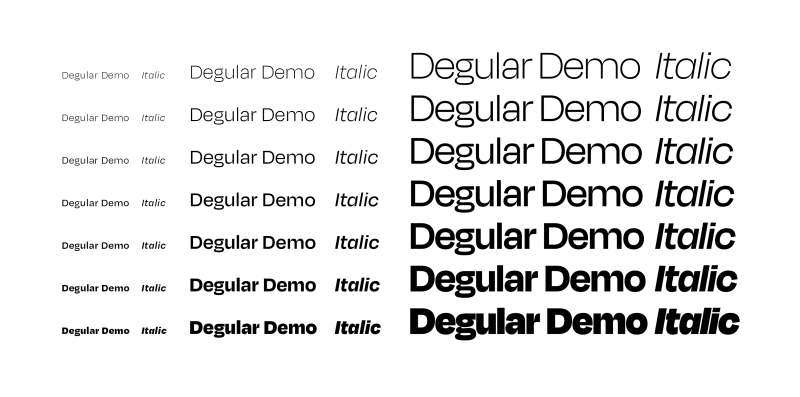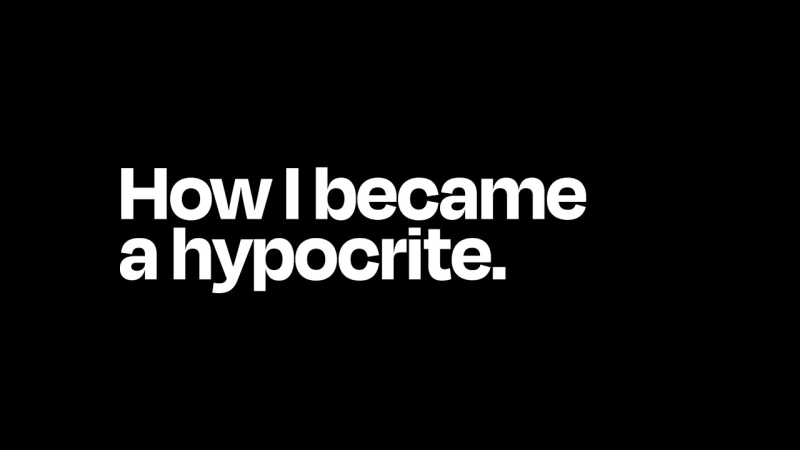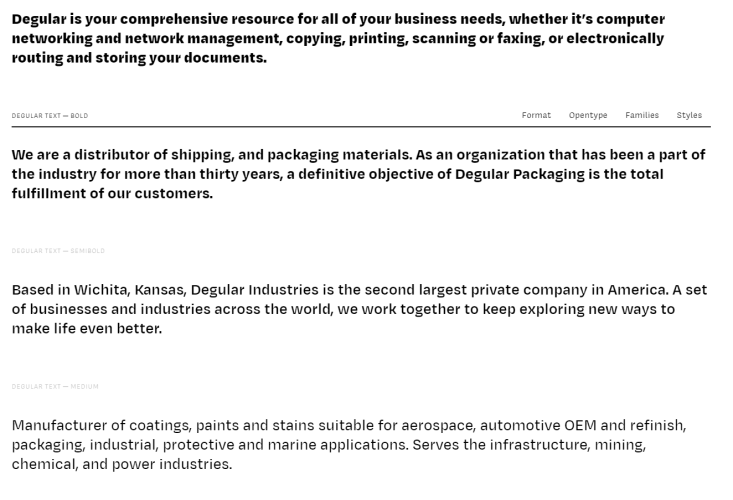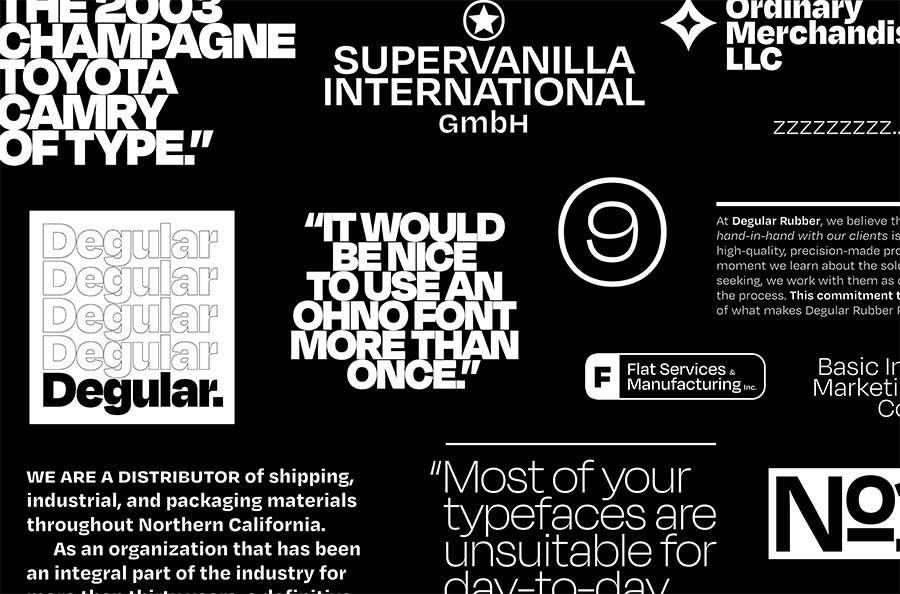
Degular Font Family
From the foundry that → brought you, “Hobeaux” (2015), “Ohno™ Blazeface” (2019), and “Cheee” (2020), comes something with (significantly) less allure. While {most of} the fonts around here scream in desperate need of your peepers’ gaze, Degular aims to fade into the background [like the finest Japanese-made white noise machine as you drift off to ~dreamland~]. ¶ Degular also provides a once-in-a-lifetime opportunity to use an Ohno font more than once! 7 weights, 3 optical sizes, in roman and italic.
Where Degular Font Family works best
Degular Font Family stays legible at small sizes, which makes it a strong choice for navigation, buttons and dashboards in web design and app interfaces.
Clean sans serifs like Degular Font Family are the default language of SaaS, fintech and product branding.
What is Degular Font Family good for?